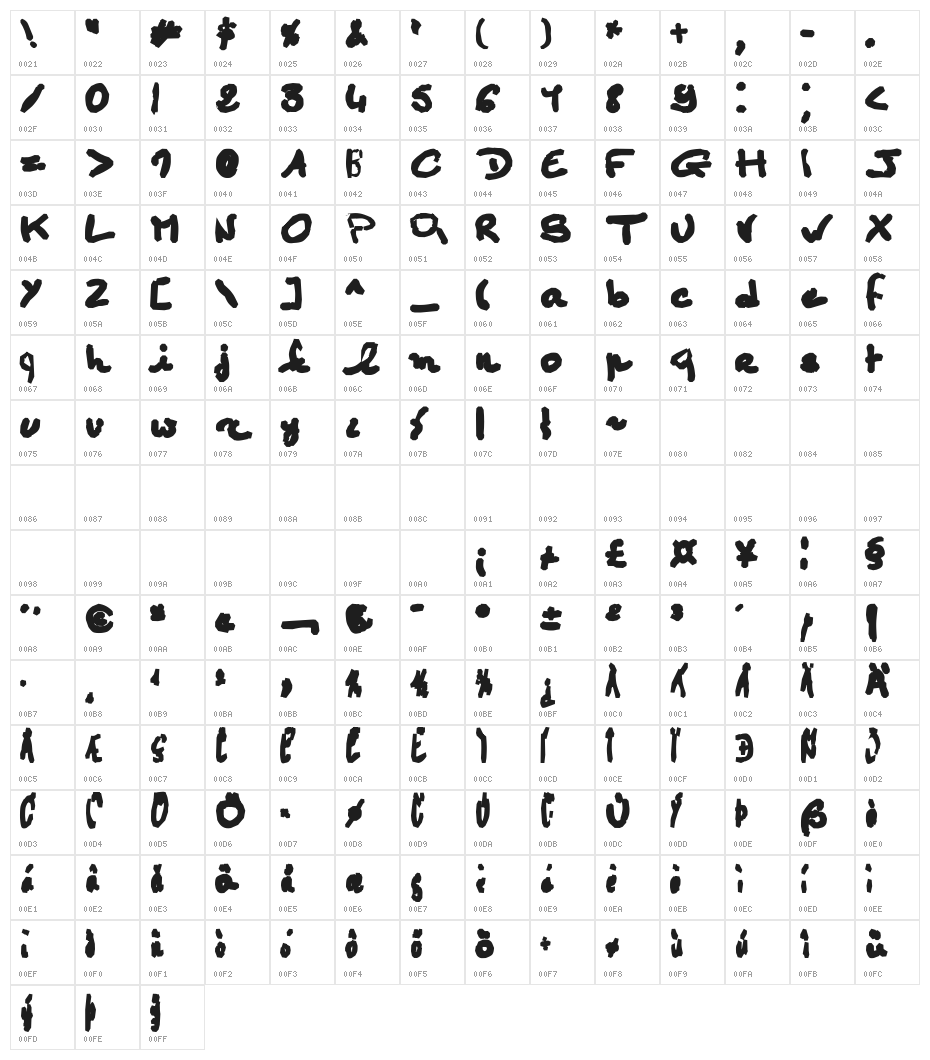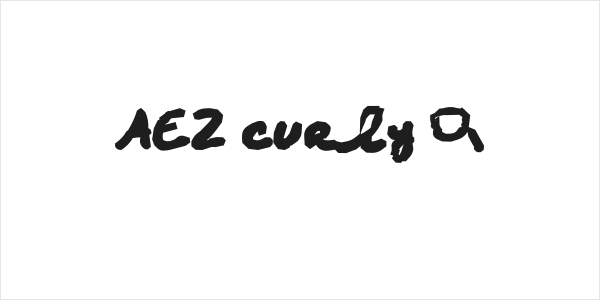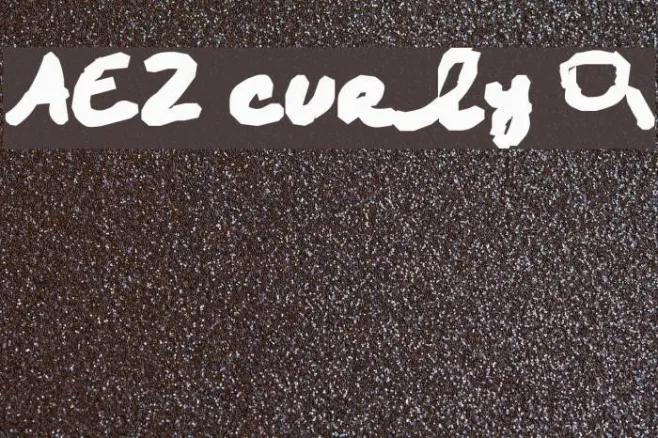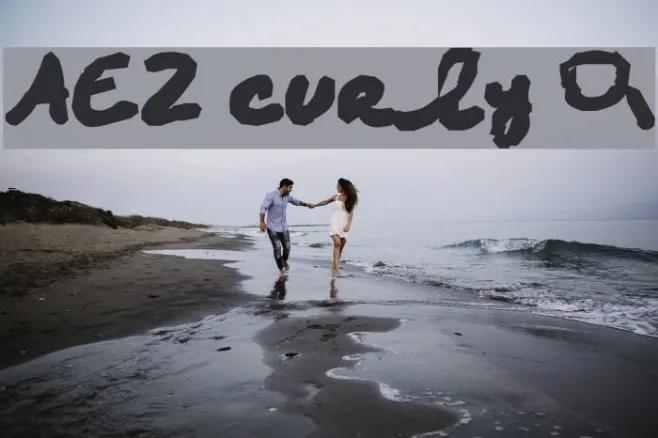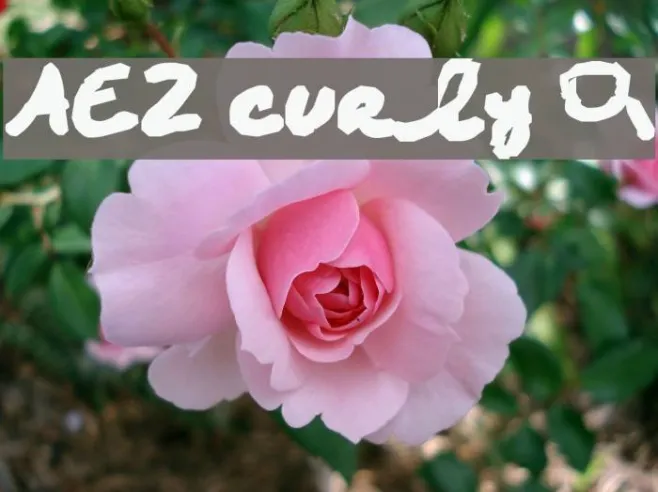
AEZ curly Q Font
AEZ curly Q Description
This font exhibits a bold, expressive style with a hand-painted appearance. The characters are characterized by their thick, uneven strokes, giving them a dynamic and artistic flair. The uppercase letters are bold and assertive, while the lowercase letters maintain a consistent flow, adding to the font's overall organic feel. The numbers and special characters follow the same bold and irregular style, ensuring a cohesive look across all elements. This font is ideal for projects that require a strong visual impact and a touch of creativity.
| Overall Style | Artistic, Expressive |
| Use Case | Headlines, Posters, Branding |
| Proposed Projects | Ideal for artistic posters, creative branding, and eye-catching headlines. |